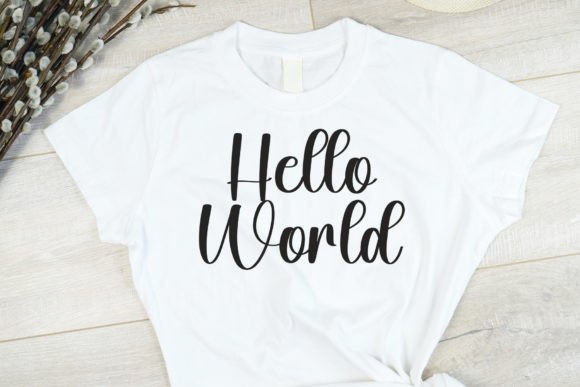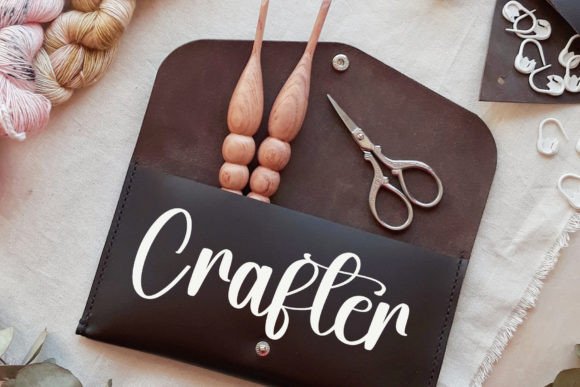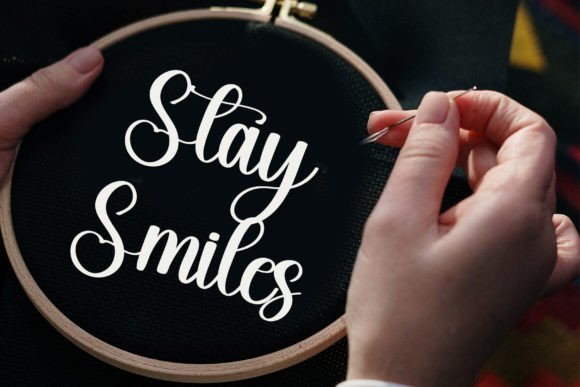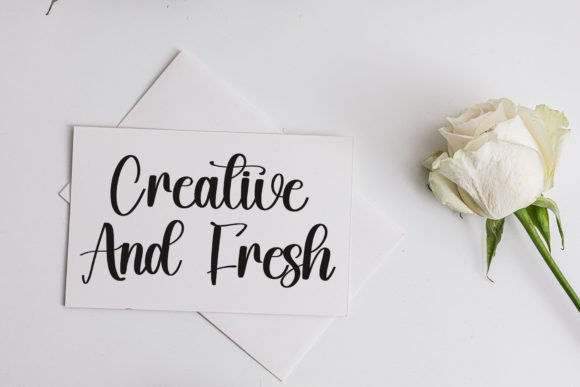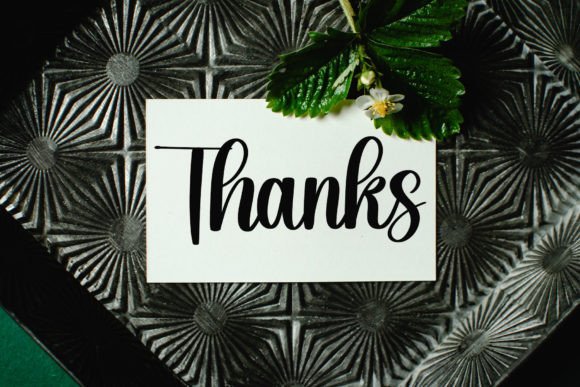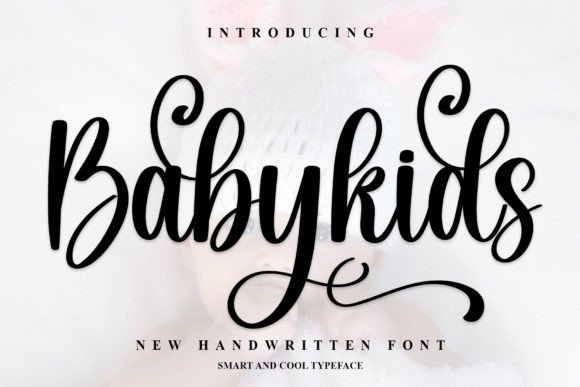
Discover the Timeless Charm of Babykids Font
Have you ever stared at a blank canvas, waiting for the perfect spark to ignite your creativity? It’s that moment when the world seems to slow down, and the possibilities are endless. For designers, it’s a moment of pure bliss – a chance to bring their ideas to life. And that’s exactly where the Babykids Font comes in, a stylish handwritten font that’s sure to add a touch of magic to your projects.
Babykids Font is more than just a font – it’s a statement piece that exudes a contemporary atmosphere and impeccable form. Inspired by the timeless classic calligraphy, this font was designed to enhance the beauty of your projects, making it a valuable asset for any designer. Whether you’re working on a branding project, a wedding invitation, or a children’s book, Babykids Font is the perfect companion to bring your vision to life.
Babykids Font Key Features
- Font Type: Script Font, ideal for creating a playful and childlike atmosphere in designs.
- Size: The font is available in 4 different font sizes: Regular, Bold, Italic, and Bold Italic.
- Characteristics: Unique, handwritten-like style with varying line widths and subtle imperfections, giving it a hand-drawn feel.
- Language Support: The font supports a wide range of languages, including Latin, Cyrillic, and Greek alphabets.
Babykids Font Review
Overall, I think the Babykids Font is a cute and playful font, perfect for designing children’s products or nursery decor. ✨ The font’s rounded edges and soft lines give it a friendly and approachable feel, which is ideal for its intended use.
- The font is highly legible, even at small font sizes.
- The rounded edges and soft lines make it easy on the eyes.
- The font is highly customizable, with a wide range of styles and sizes available.
- The font may not be suitable for formal or professional applications, as it can come across as too playful or childish.
- The font may not be as versatile as some other fonts, as it’s primarily designed for children’s products and nursery decor.
- The font may not be compatible with all operating systems or devices.
- ⚠️ Some characters, such as the numeral “1” and the letter “l”, can be easily confused with one another.
Overall, I think the Babykids Font is a solid choice for designers working on children’s projects, but it may not be the best fit for every design application.
Tips for Getting the Most Out of Babykids Font
Use the Babykids Font for designs that require a playful, whimsical feel.
Combine the font with bold, colorful graphics for a visually appealing effect.
Experiment with different font sizes and styles to create a unique look.
Children’s products and services
Toy packaging and branding
Children’s book illustrations
Party invitations and decorations